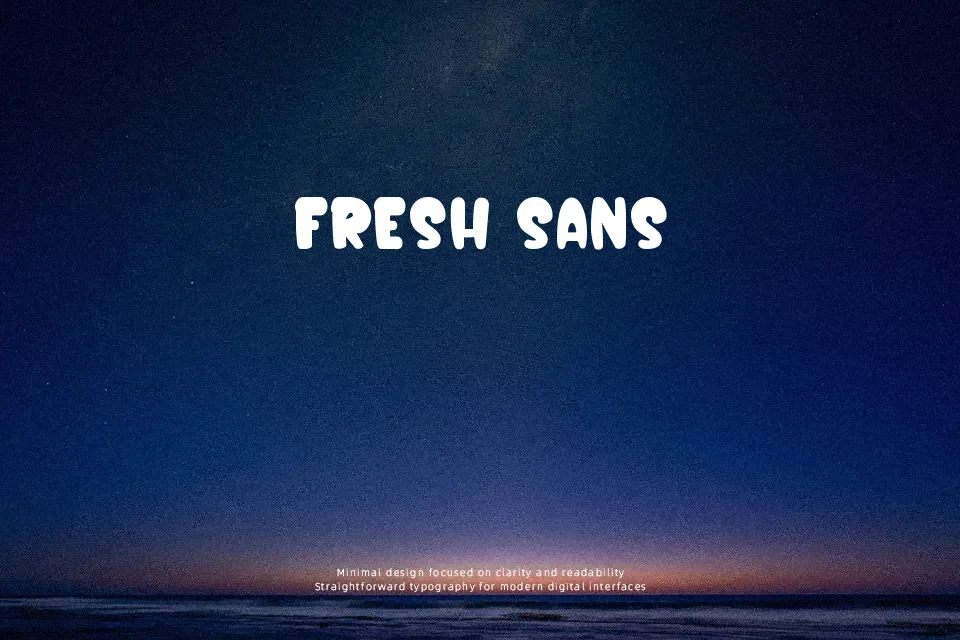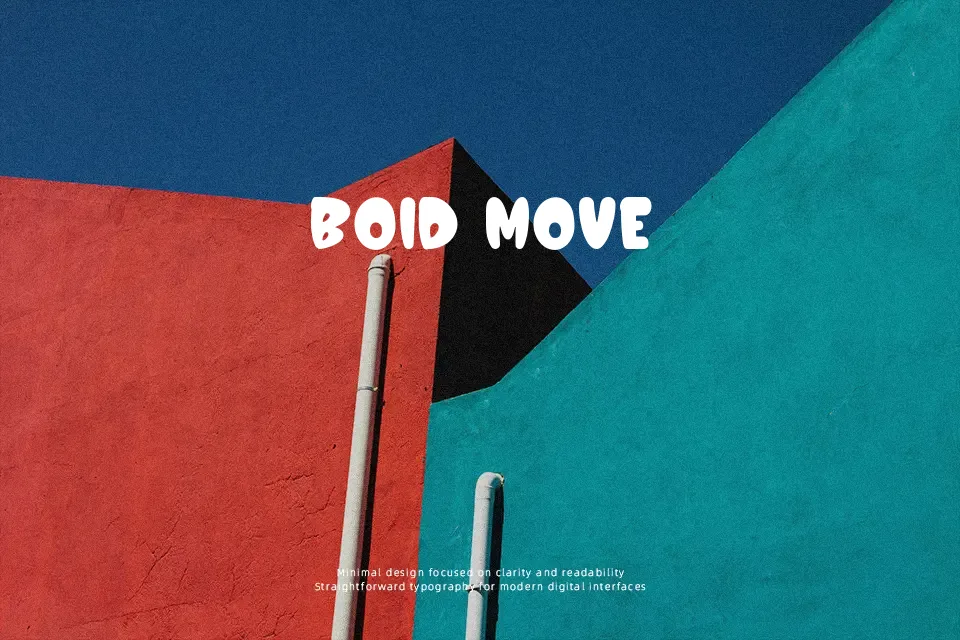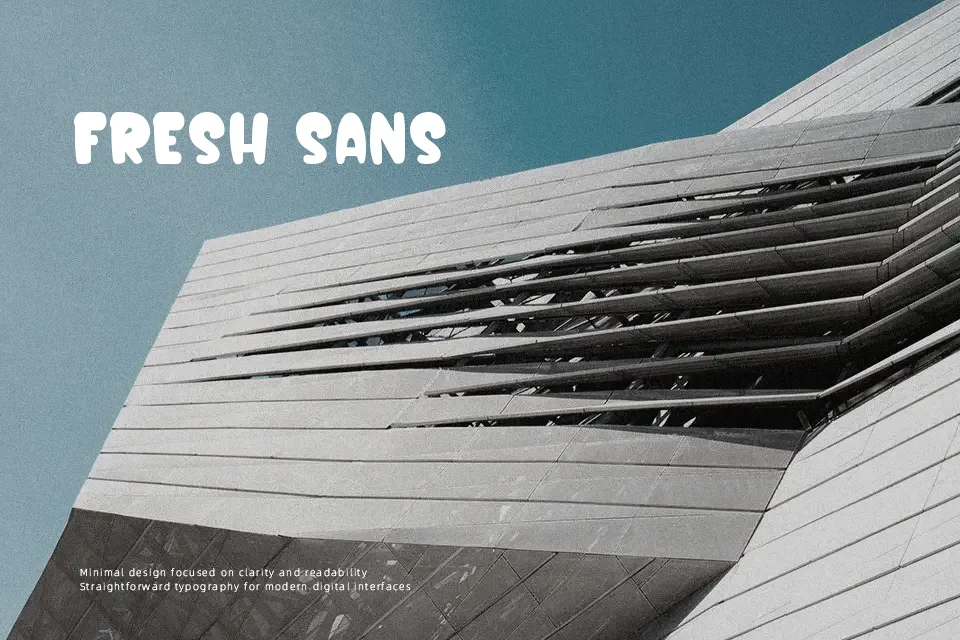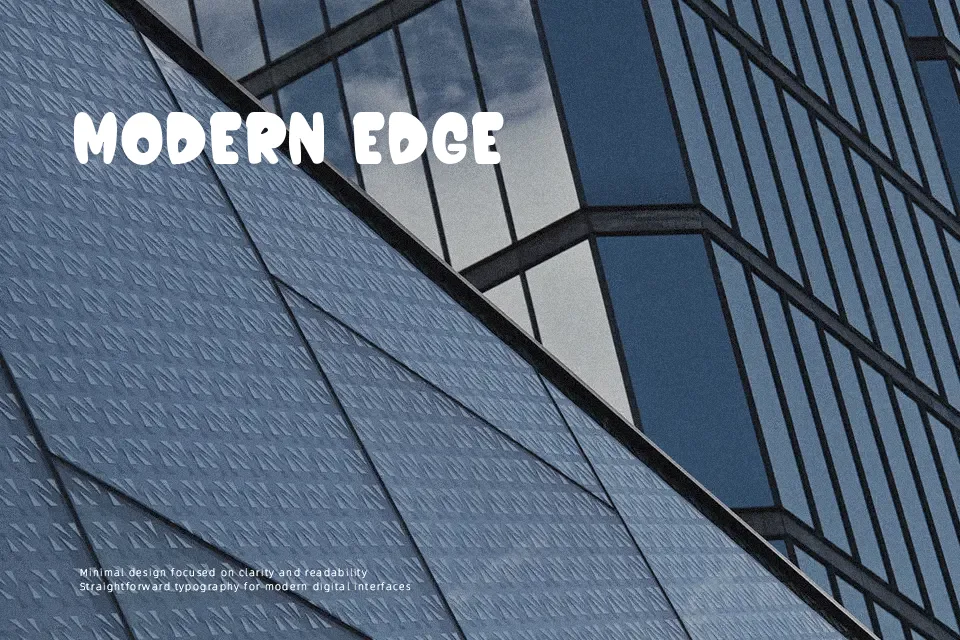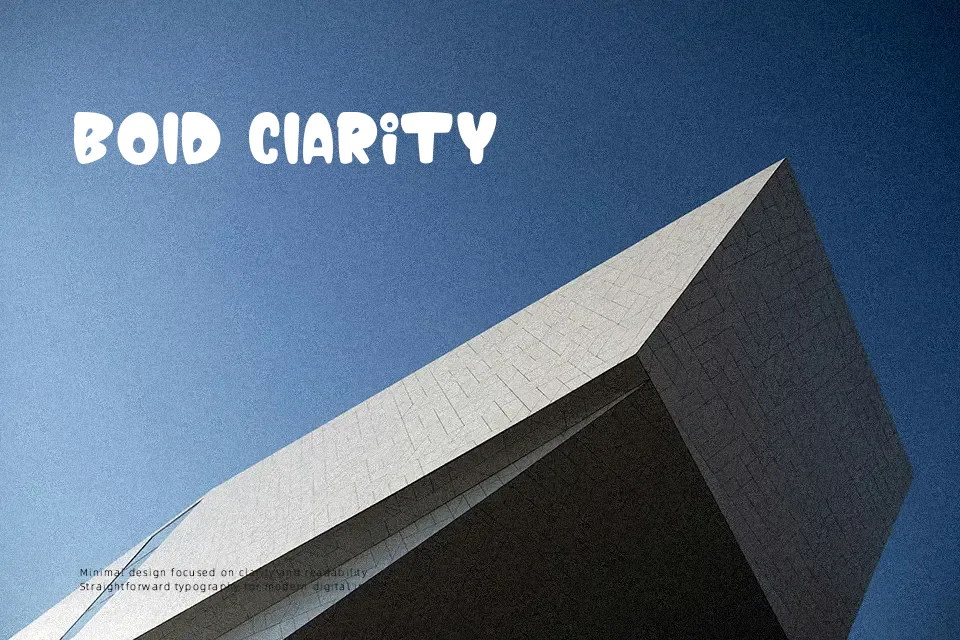
Boba Milk Bold Font
Boba Milk Bold leans into thick, rounded strokes, soft terminals, and slightly uneven curves that give it a hand-drawn, milky look. Letters feel wide and bouncy, with generous counters and relaxed spacing that reads clearly at medium to large sizes. The overall character is casual and decorative, more like a sign painted on a café window than a strict geometric typeface. It works especially well for dessert shops, bubble tea brands, children’s packaging, and seasonal holiday titles where a sweet, approachable personality matters more than precision. For long paragraphs, small captions, or serious editorial layouts, the shapes can feel too playful and dense, so it is better kept for display roles.
bubble tea or dessert shop logos and signage
kids product packaging and party invitations
holiday-themed posters, banners, and headers
playful social media posts and story titles
long body copy or text-heavy layouts
formal corporate branding or reports
small UI labels or dense data graphics
minimal, ultra-clean editorial design
Perfect for holiday, logo, and packaging, with a bold and cartoon style.